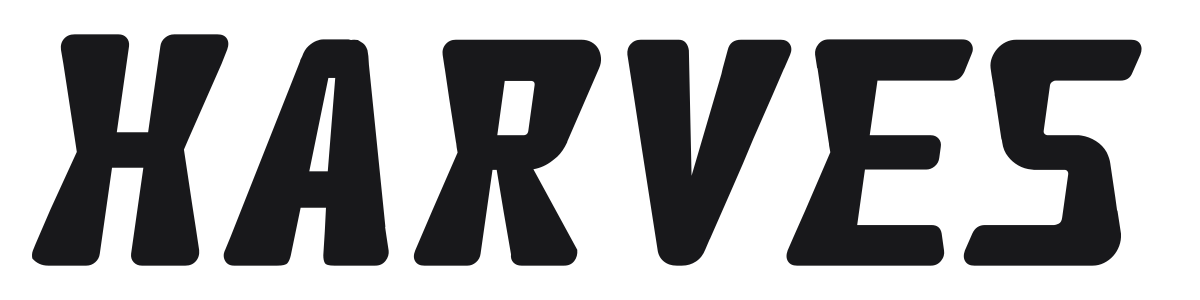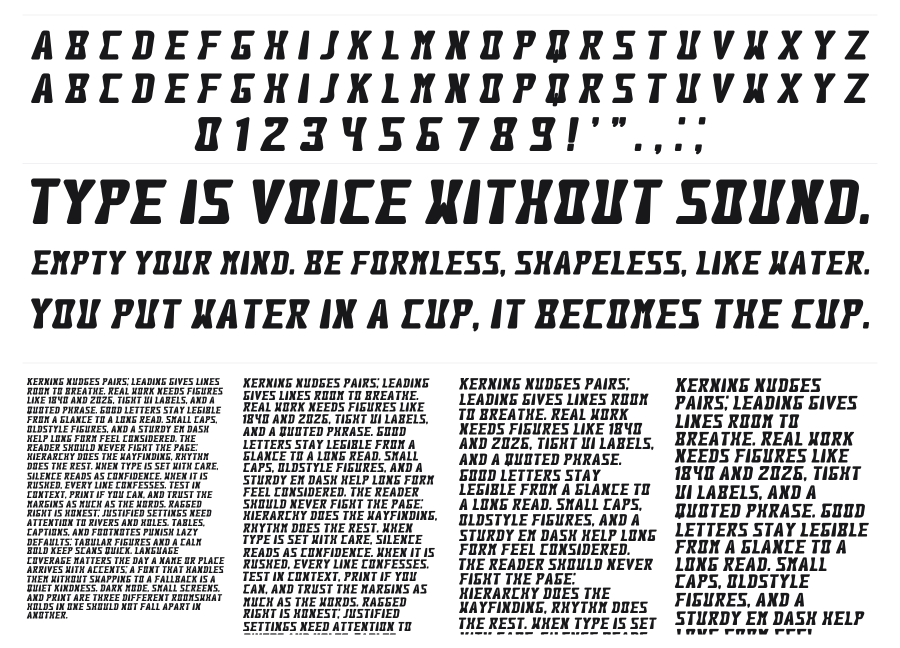
Harves
Harves is a heavy condensed italic display face with sharp wedge serifs and a forceful oblique stance. The thick strokes and tight proportions pack serious visual weight, making it readable at a glance on posters, packaging, or team branding. It carries the DNA of mid-century industrial lettering with a modern boldness.